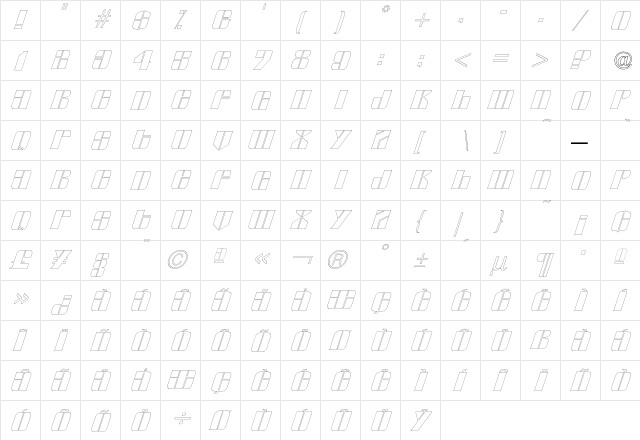
Glyphic SeriesOutlineItalic
Design Context for Glyphic Typeface
Glyphic brings ornamental detail and strong personality to headlines and identities, where visual impact matters more than quiet functionality. The slanted form adds forward momentum and visual energy.
Font Pairing: Pair with a clean neutral sans-serif for body copy to let Glyphic's character lead without overwhelming the composition.
Pro Tip: Treat Glyphic as the centrepiece of your typographic hierarchy. One strong heading set in a decorative face can carry an entire layout.